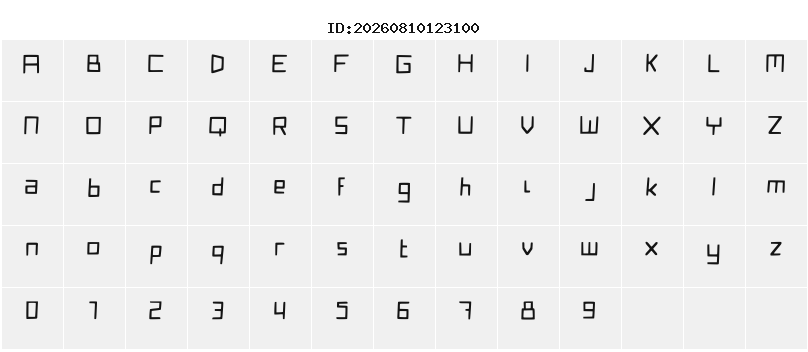
• Font Name: QuirkyRobot
QuirkyRobot.ttf is a modern, elegant sans-serif font designed for ultimate readability and visual harmony. Perfect for branding, headlines, web design, and print materials.